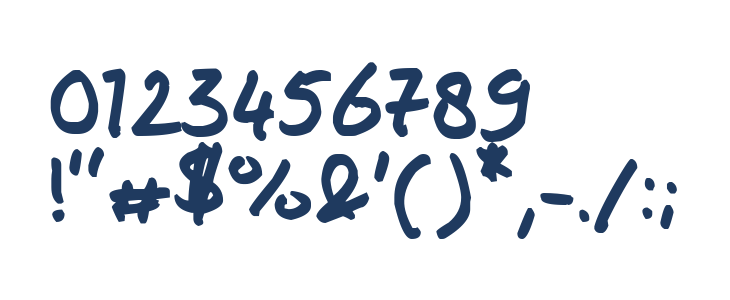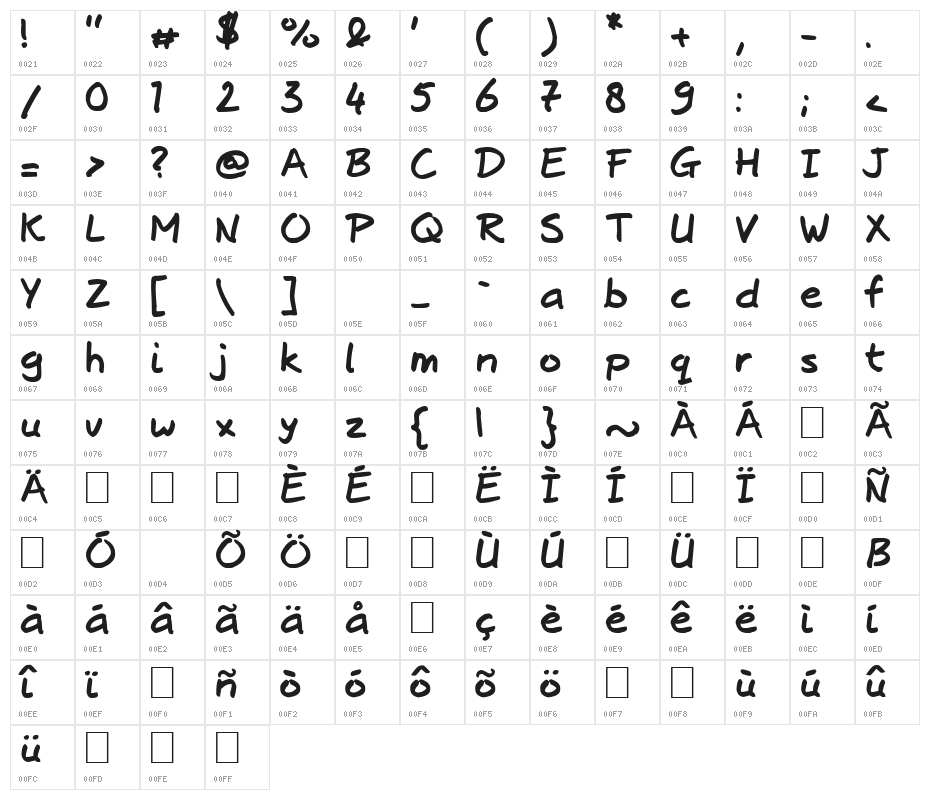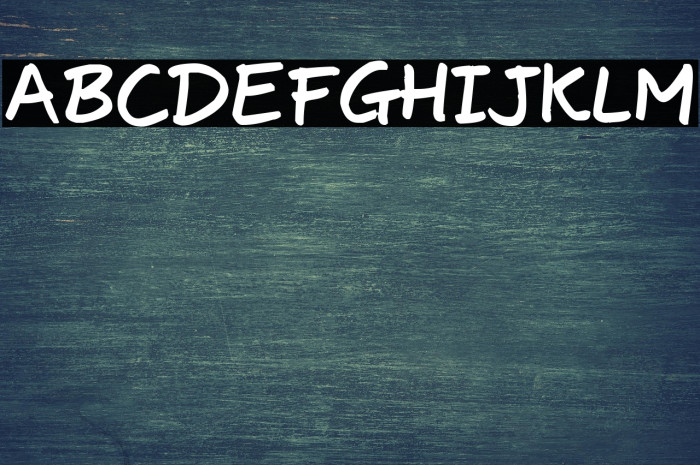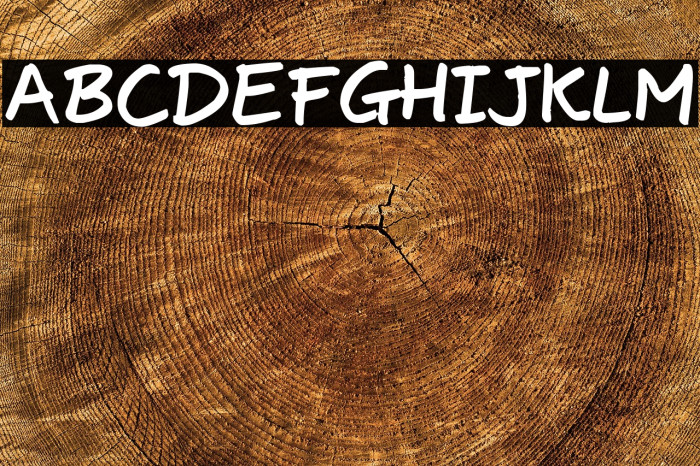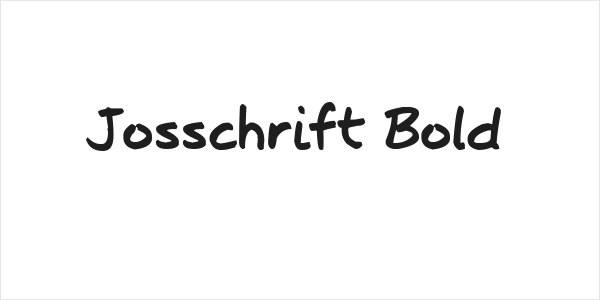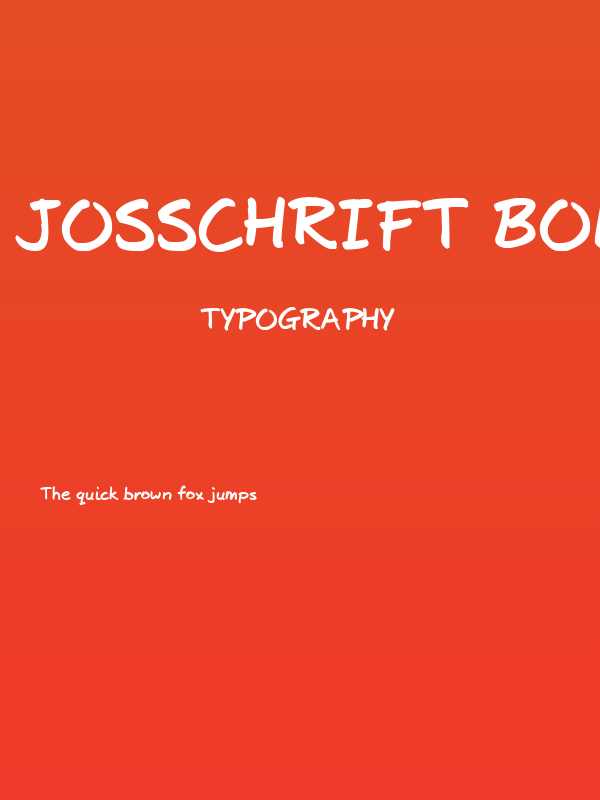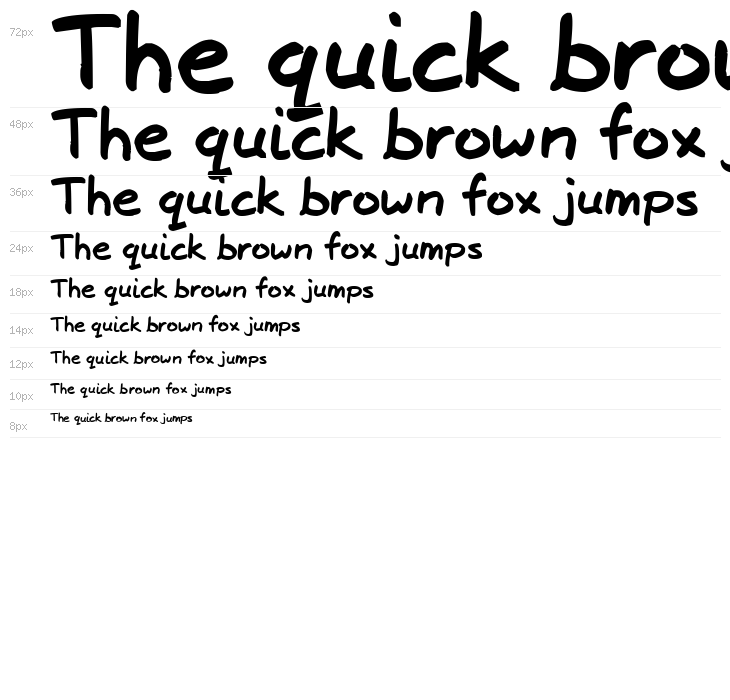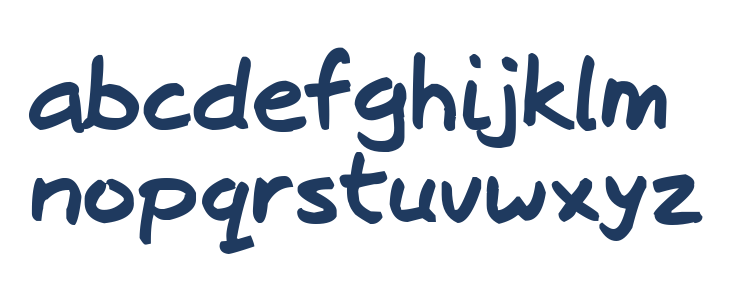
Josschrift Bold Font
Josschrift Bold Description
This font features a bold, handwritten style with a playful and informal appearance. The characters are slightly slanted, giving them a dynamic and energetic feel. The strokes are thick and consistent, providing a strong visual impact. The uppercase and lowercase letters maintain a cohesive look, while the numerals and special characters are crafted with the same boldness and fluidity. This font exudes a casual and friendly vibe, making it suitable for projects that require a personal touch.
| Use Case | Logos, Headlines, Informal Text |
| Proposed Projects | Ideal for greeting cards, children's books, playful branding, and casual invitations. |